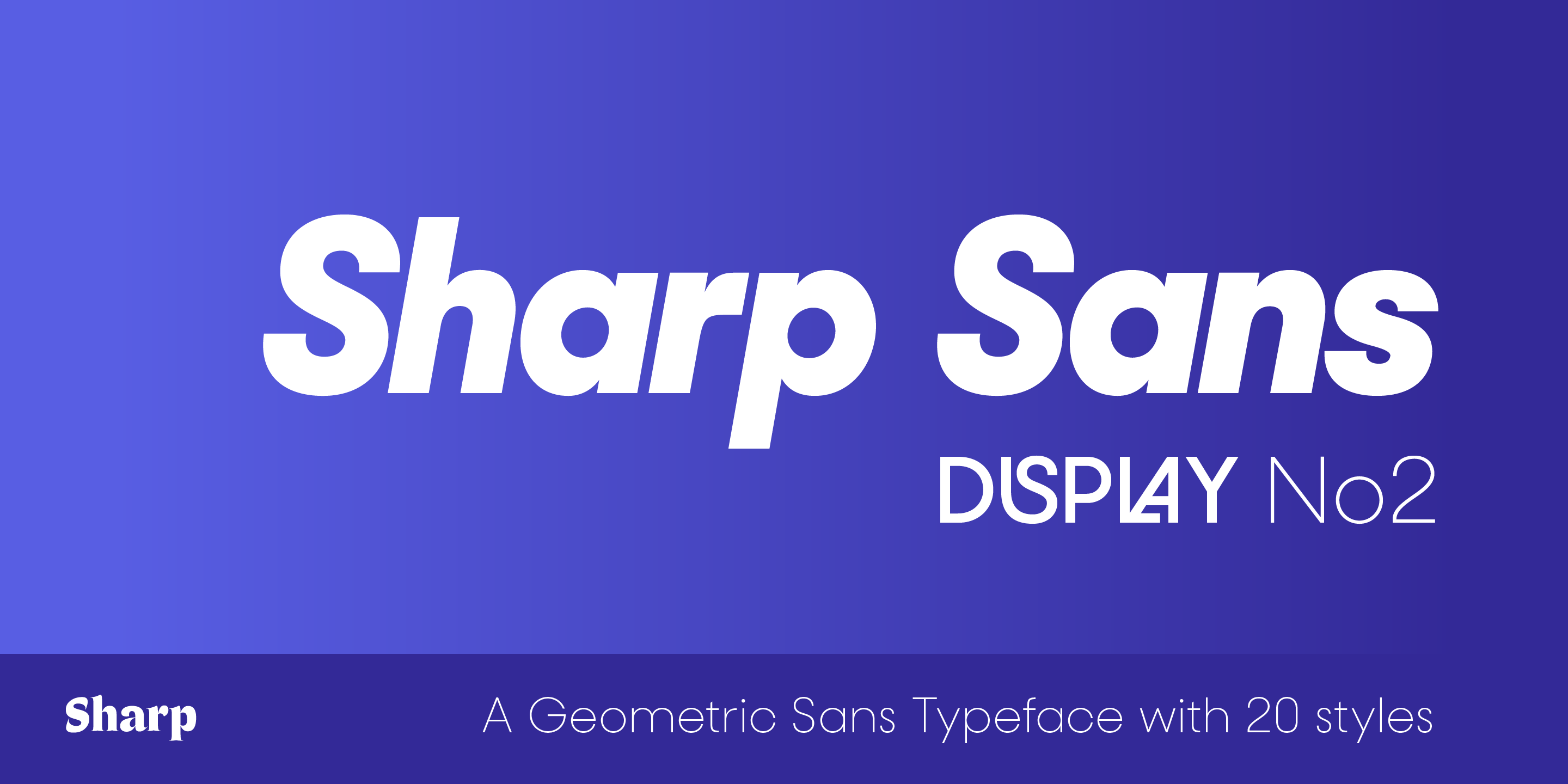
Sharp Sans Display No. 2 Font is perfect for cutting-edge brand identities, high-impact headlines, modern advertising campaigns, tech company logos, contemporary poster designs, bold signage systems, innovative product launches, digital platform interfaces, architectural presentations, and progressive marketing communications. This striking display sans-serif brings razor-sharp precision and commanding visual impact to attention-grabbing design applications.
What makes Sharp Sans Display No. 2 Font so exciting is its extraordinary combination of geometric precision and dramatic visual impact that cuts through visual noise with surgical accuracy and unforgettable presence. The font features meticulously engineered letterforms with crisp edges, precise angles, and mathematical construction that create immediate visual hierarchy and commanding authority. Its distinctive characteristics include sharp geometric details, consistent stroke weights, and aggressive character spacing that ensure maximum impact at large sizes while maintaining exceptional clarity and professional presentation. The font's cutting-edge aesthetic and proven performance in high-stakes branding environments make Sharp Sans Display No. 2 Font the ultimate choice for brands seeking to project innovation, confidence, and uncompromising quality standards.
The Sharp Sans Display No. 2 Font family includes comprehensive weights and styles: Light, Regular, Medium, Bold, and Black variations optimized for display applications. The extensive character set encompasses complete Latin alphabet support with modern symbols, technical characters, mathematical operators, currency symbols, and broad international language coverage including extended Latin characters. Professional features include contextual alternates that enhance sharp appearance, optical adjustments for large-size applications, precise spacing for maximum impact, and geometric consistency that ensures perfect visual harmony across all weights and display environments.
Whether you're creating bold brand identities, impactful advertising materials, or cutting-edge digital interfaces, Sharp Sans Display No. 2 Font Free Download provides the authoritative typography that commands attention and establishes dominant market presence. Its exceptional visual power makes it ideal for brands requiring immediate recognition and lasting impression, while its technical precision ensures professional presentation that resonates with sophisticated audiences. The font's combination of geometric sharpness and contemporary functionality makes it indispensable for tech companies, innovative brands, design agencies, and any organization seeking typography that communicates the precision, innovation, and uncompromising excellence that defines leadership in today's competitive marketplace and demanding visual communication landscape.